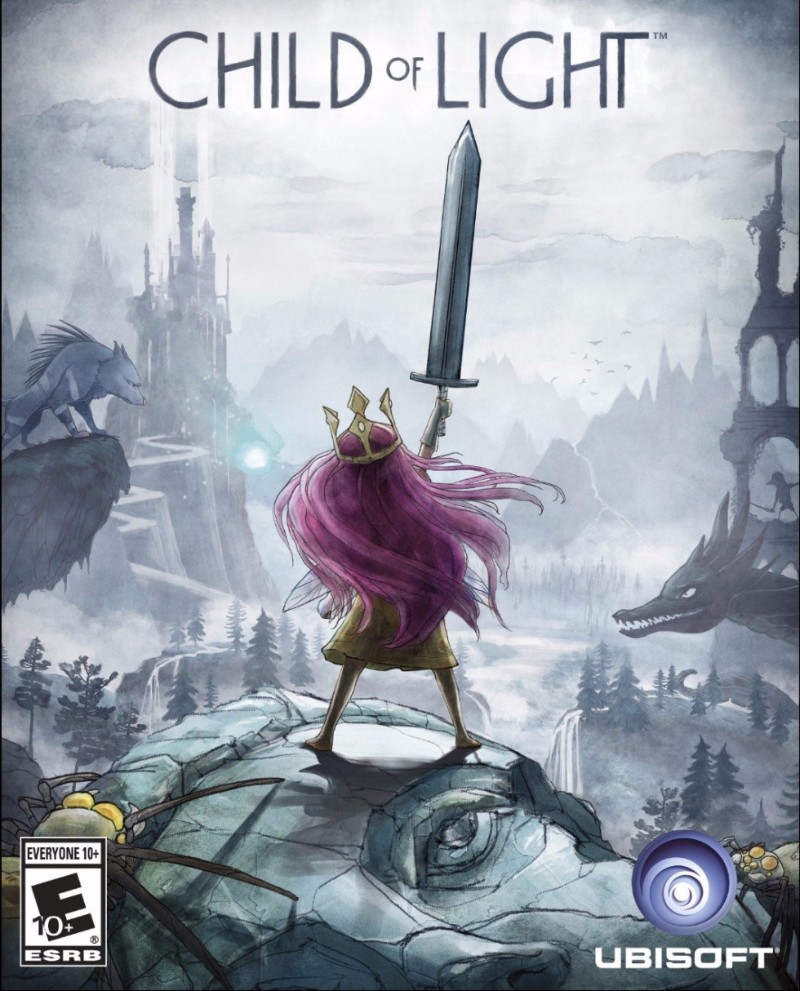
Child of Light Font
Fonts in UseChild of Light is a 2D side-scrolling RPG developed by Ubisoft Montreal and released in 2014. The game follows the journey of a young girl named Aurora, who must navigate a magical world and defeat dark creatures to save her homeland.
It appears that the video game logo was created using the font ITC Busorama, a typeface designed by Tom Carnase in the 1970s with Art Deco influences.